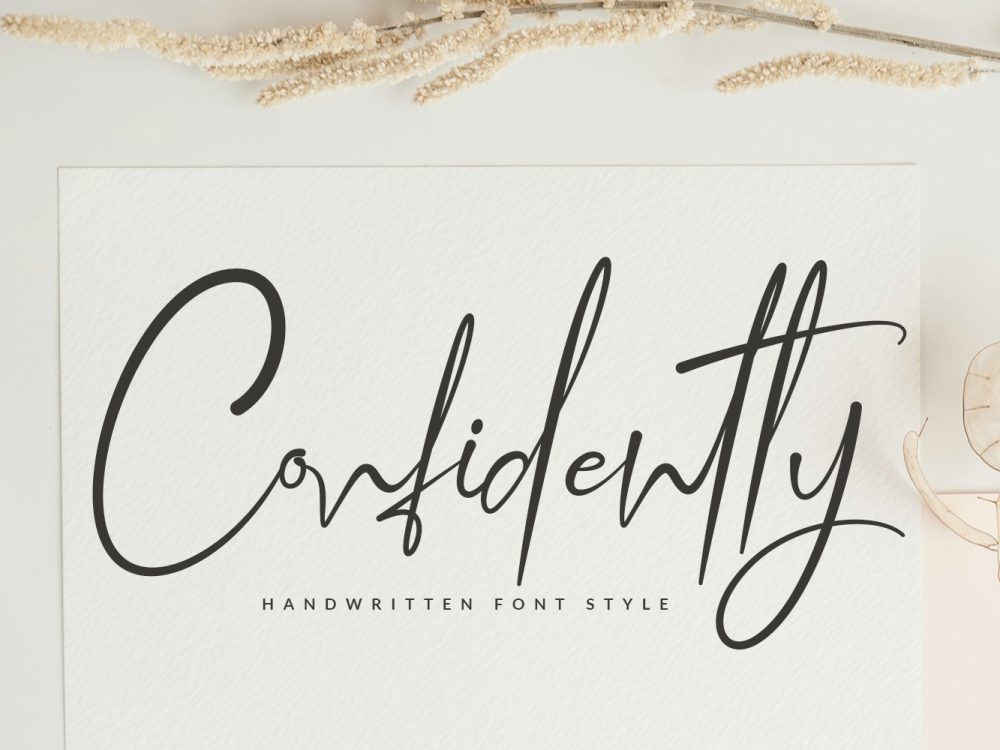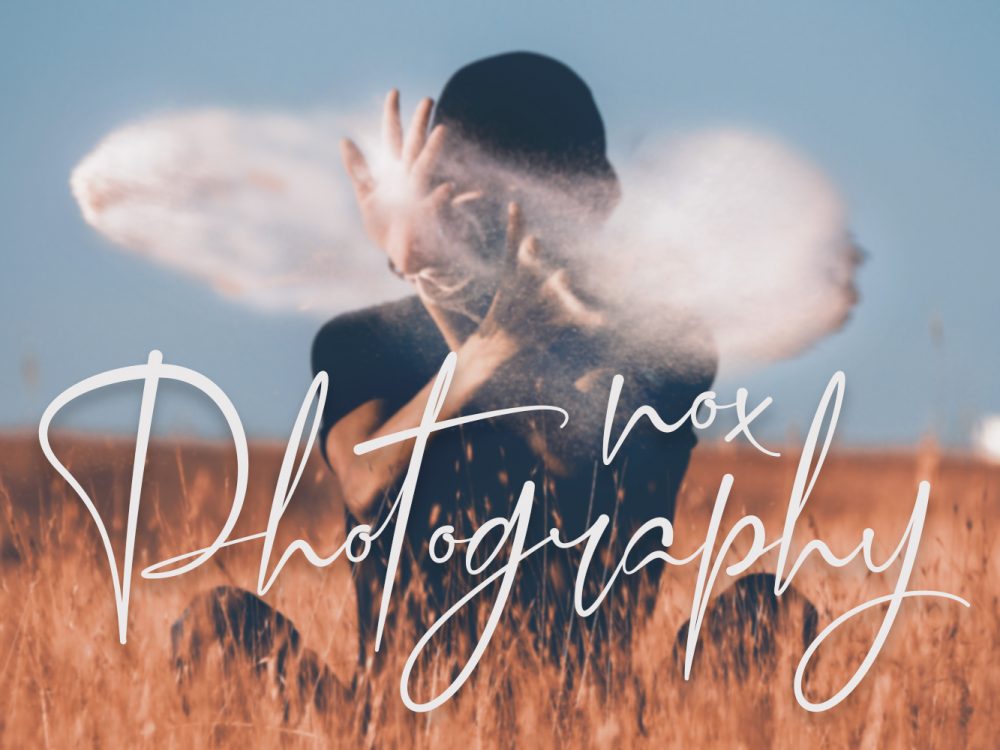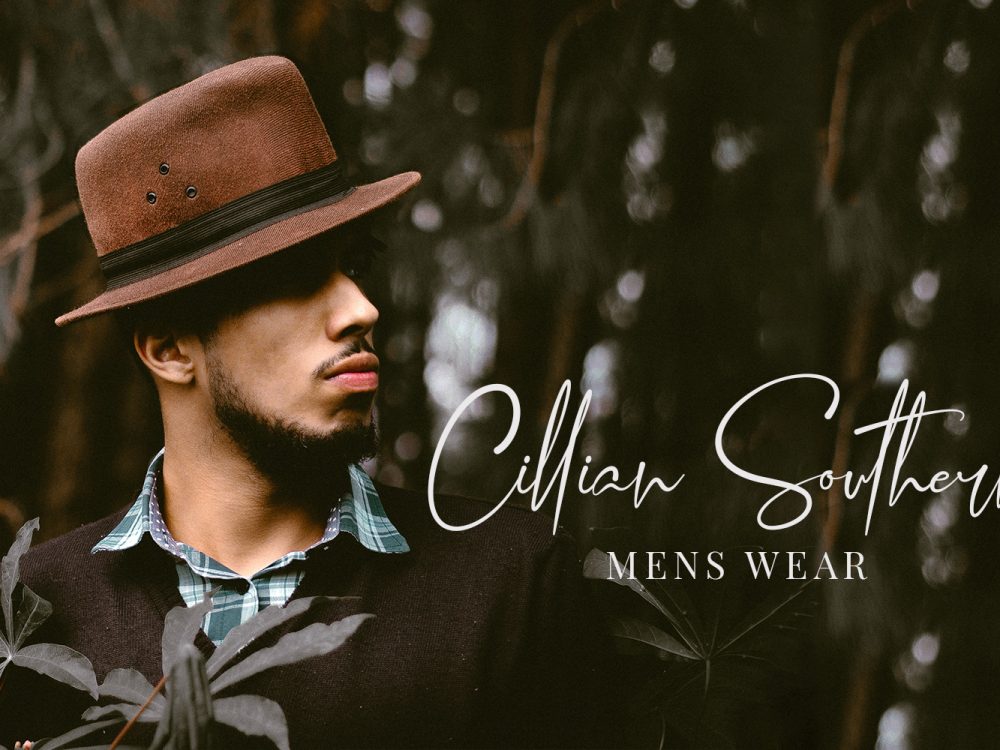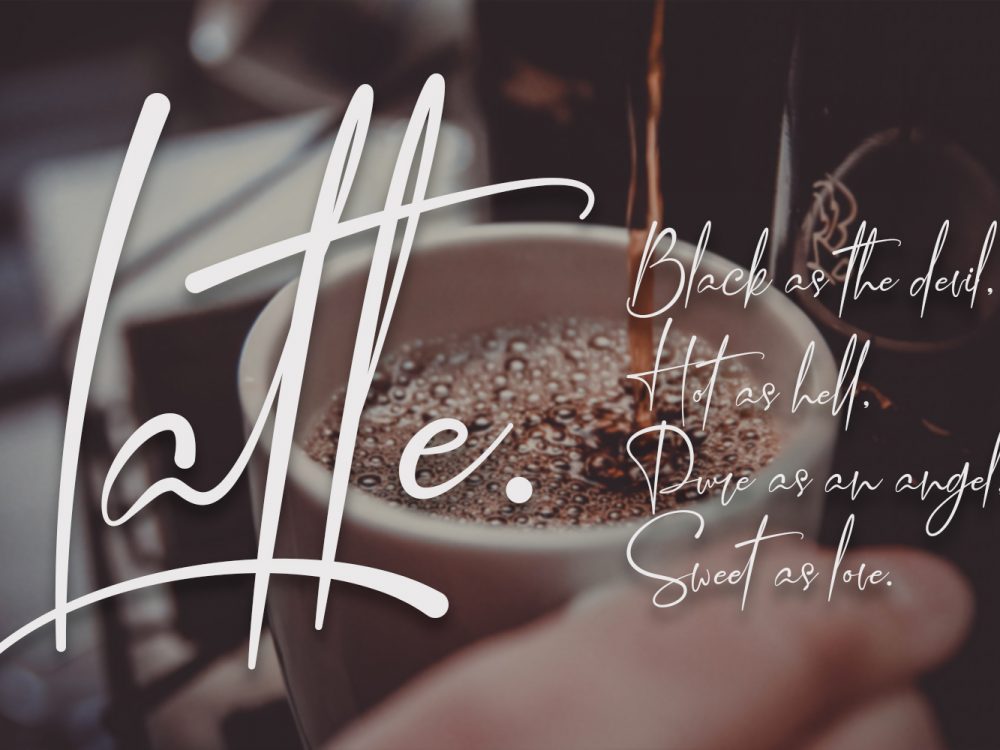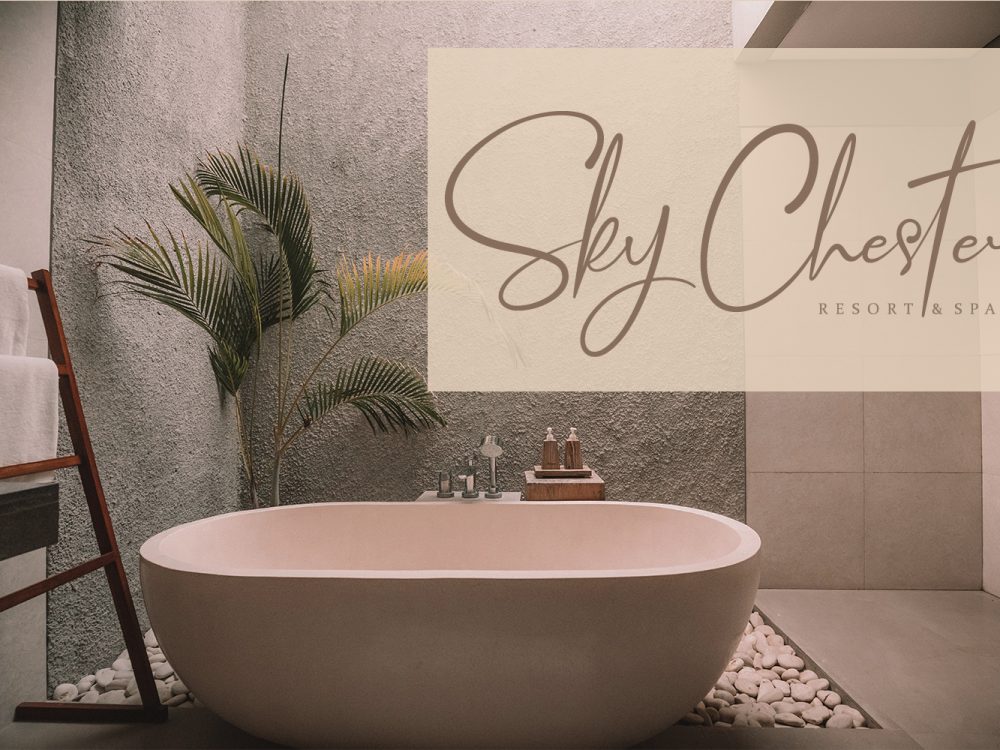
Confidently Free Font
Confidently Free Font is a high-quality modern typeface with a calligraphic style. This font is well suited for a variety of design projects that require a scriptable, interesting handwritten font. You can use this font to create memorable romantic posters, wedding invitations, greeting cards, branding, flyers, t-shirt and pillow prints, and more. If you like it don’t forget to check out the full version.